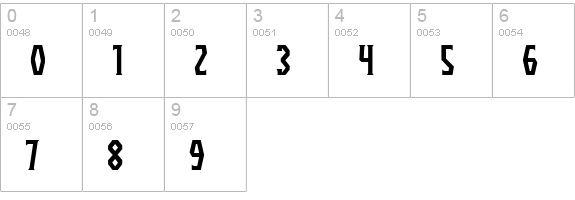
Praetorium BB Font Details
Praetorium BB font is a stunning display typeface that exudes elegance and sophistication. With its bold and sleek design, this font is perfect for creating eye-catching headlines and titles. The sharp and modern look of Praetorium BB font makes it ideal for projects that require a touch of class and style. What sets Praetorium BB font apart is that it is available for free download at FontsMarket.com. This means that you can easily access this high-quality font without any cost, making it a valuable addition to your design toolkit. Whether you are working on a branding project, advertising campaign, or any other creative endeavor, Praetorium BB font is sure to elevate your designs and leave a lasting impression. Download this exquisite font today and unleash your creativity with ease!